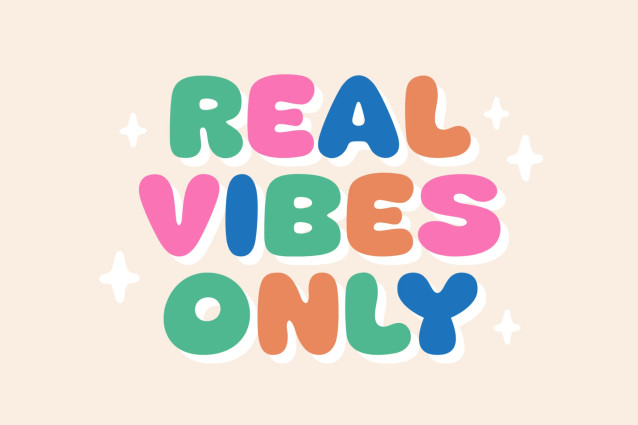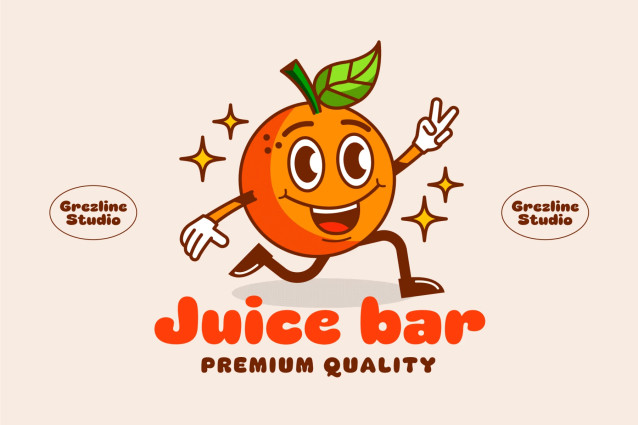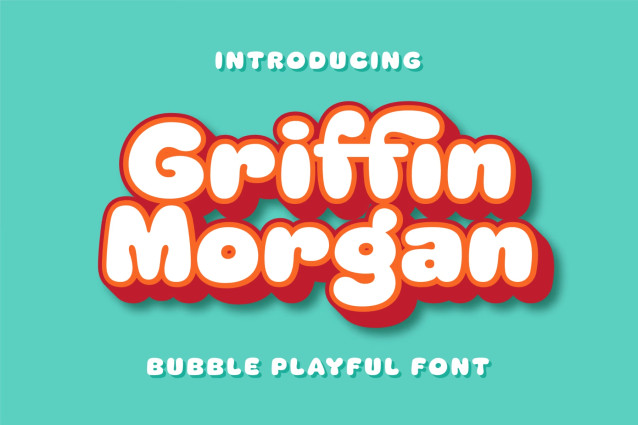
Griffin Morgan is a cute, bubbly, playful font that is perfect for kids and children-theme design. Griffin Morgan Font is ideal for logos, posters, packaging, banner, and other creative projects that demand cheerful vibe and fun elements.
– Ligature & Alternate glyphs
– Multilingual Language